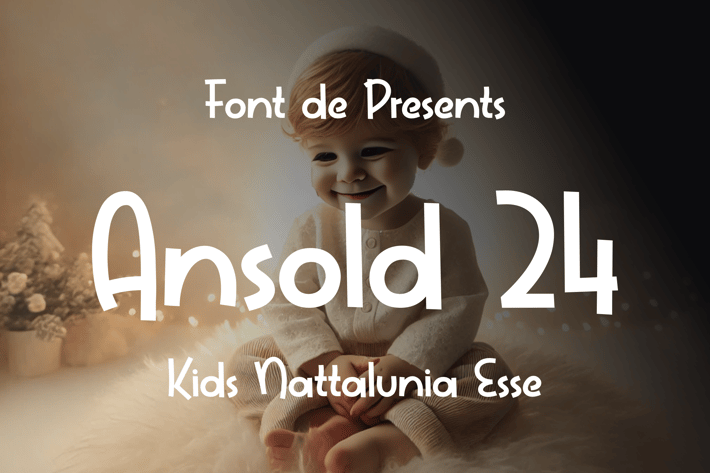
Ansold 24 Font
Ansold 24 is a playful, heartwarming font designed to capture the joy and magic of Christmas, perfect for family and children-themed designs. With soft, friendly curves, it brings a cheerful, inviting feel to holiday cards, family event posters, and festive invitations. Each character in Ansold 24 is crafted to add warmth and charm, making your holiday designs stand out with a touch of cozy Christmas spirit.